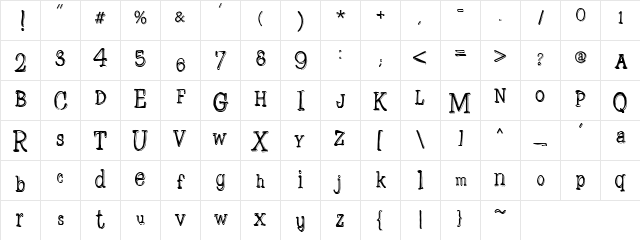
PC Mismatch Regular
Design Context for PC Mismatch Typeface
PC Mismatch is a composed and adaptable typeface that performs quietly and consistently across a wide range of design contexts.